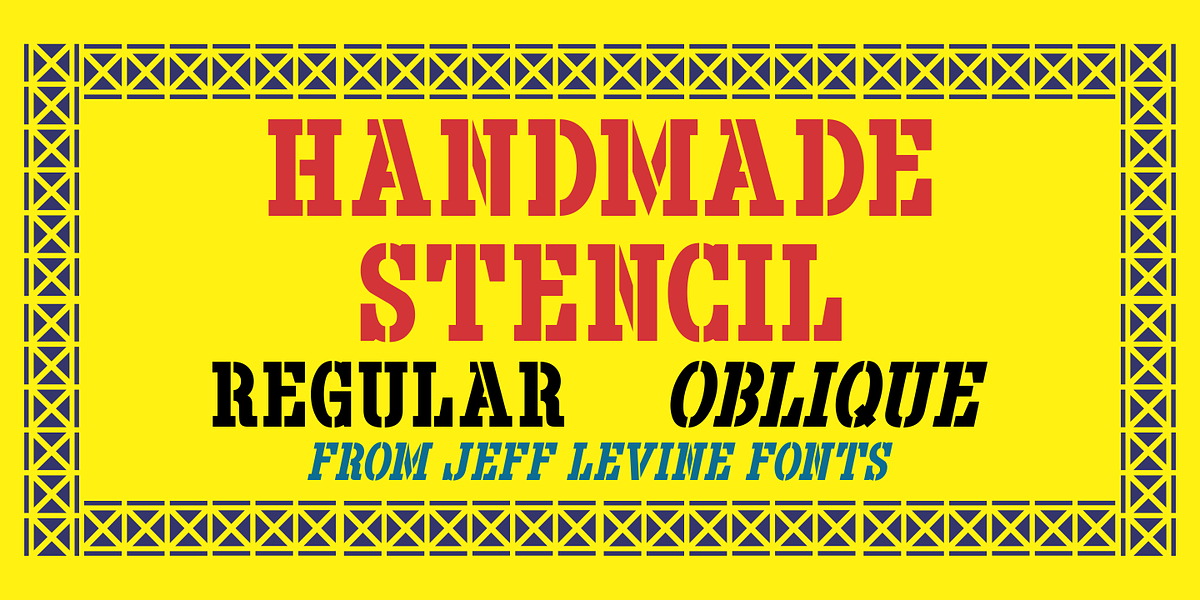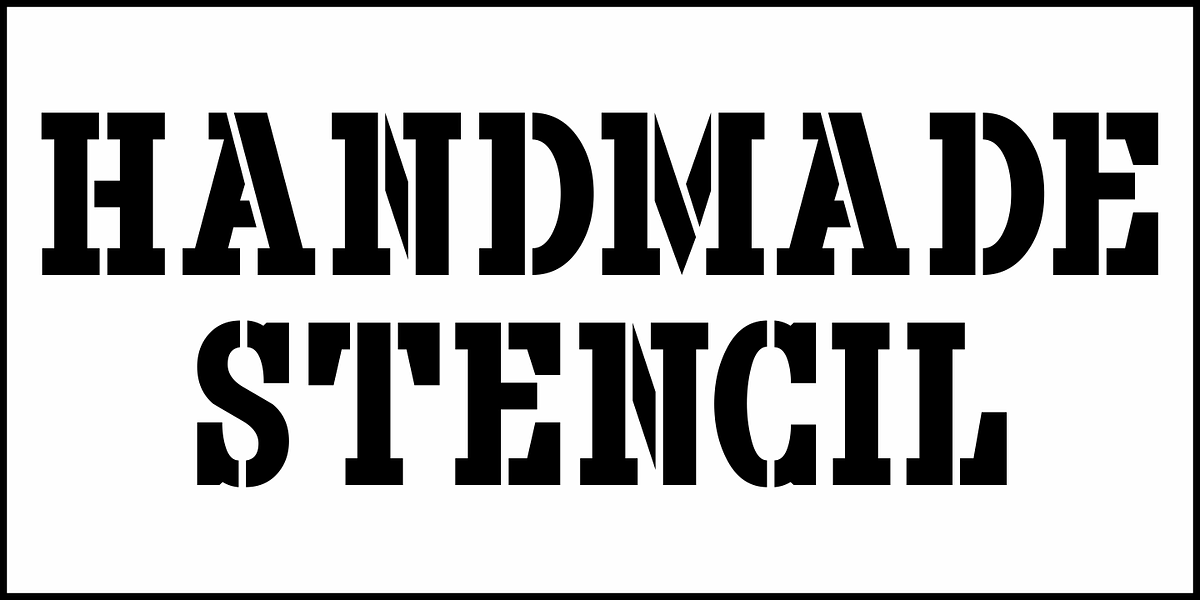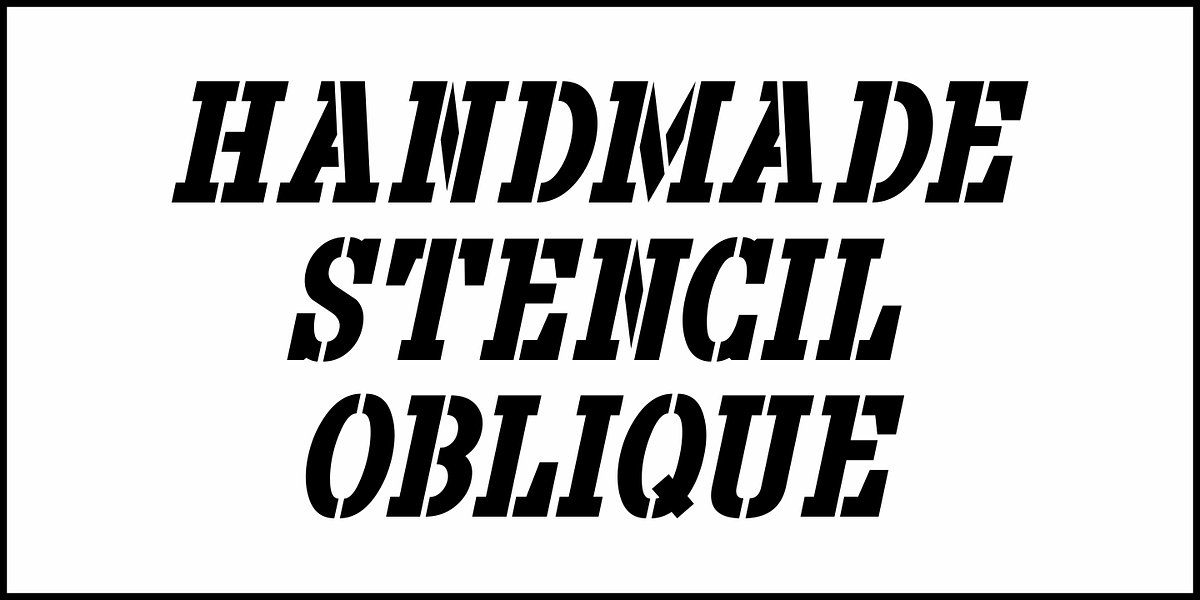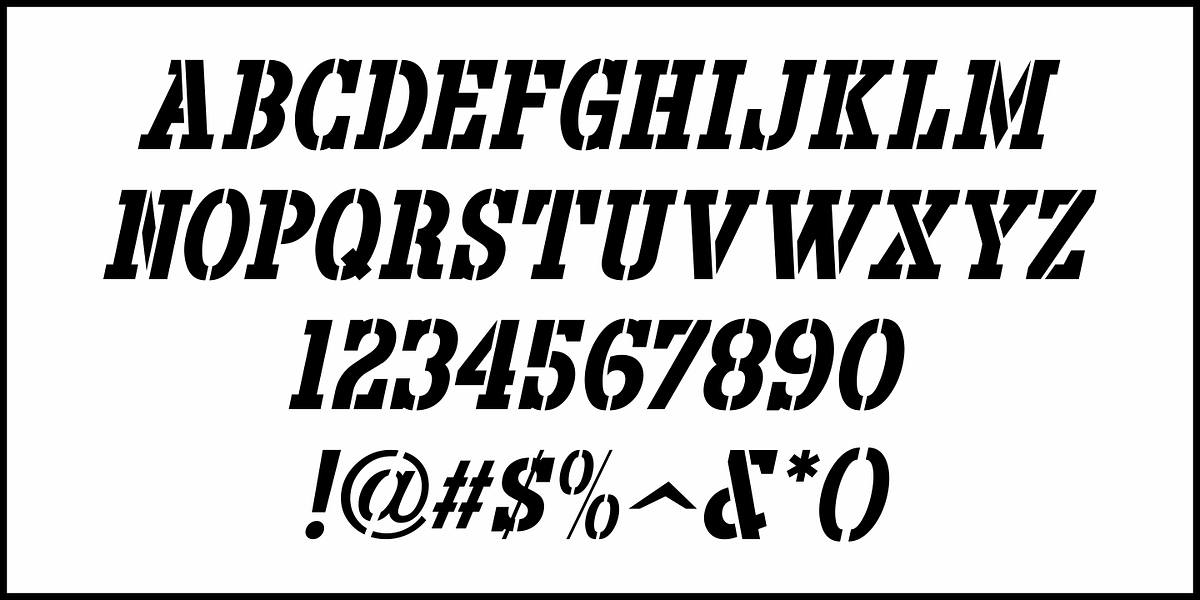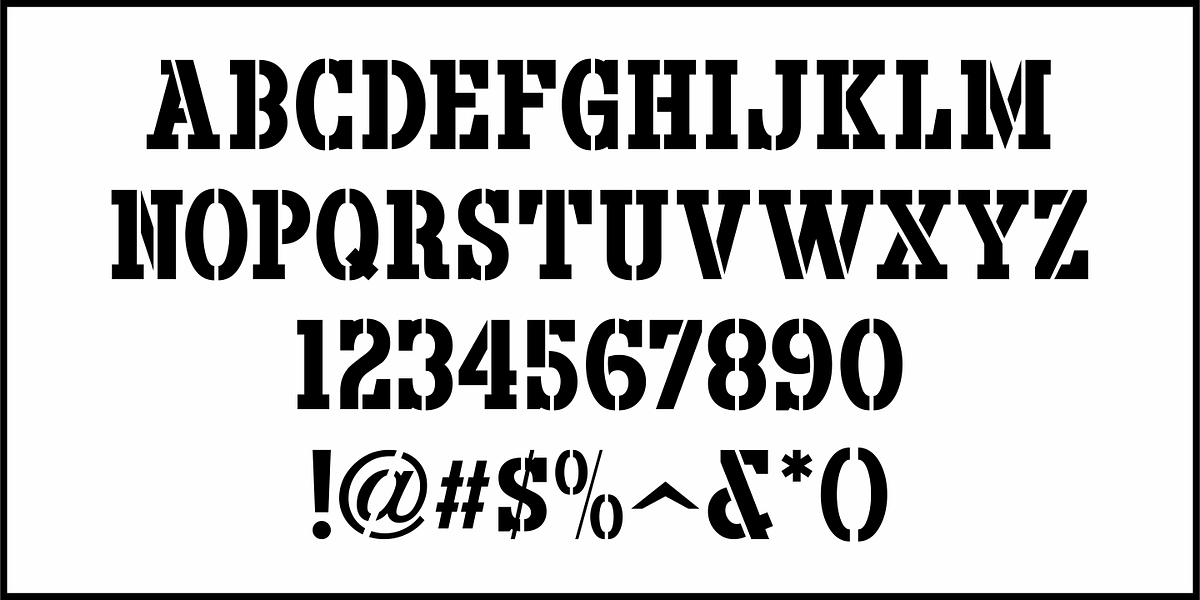
Handmade Stencil JNL
Handmade Stencil JNL was inspired by the hand lettered opening credits of the 1954 film “Human Desire” and is available in both regular and oblique versions.